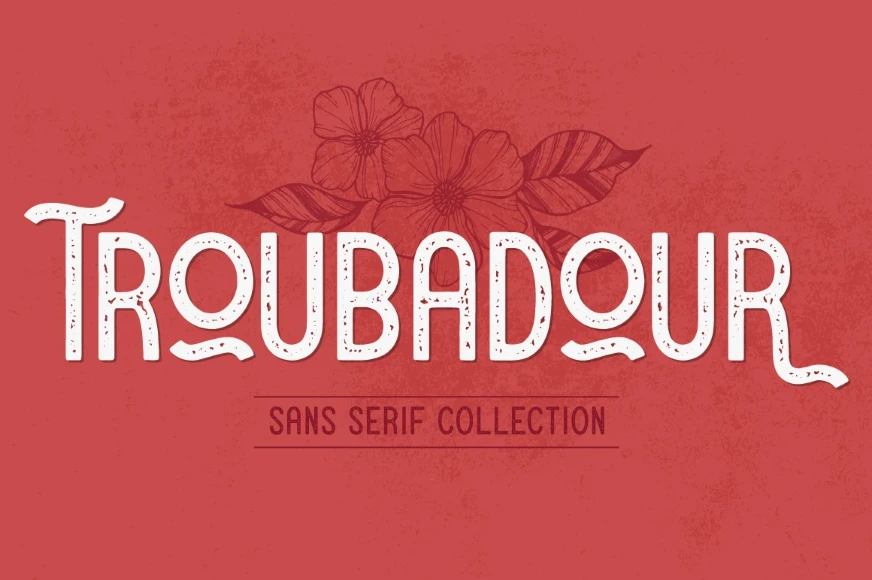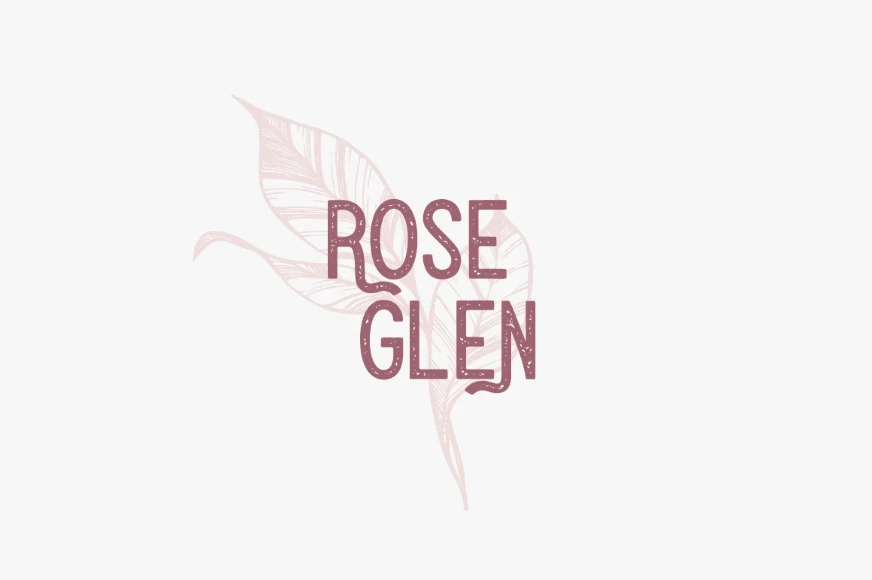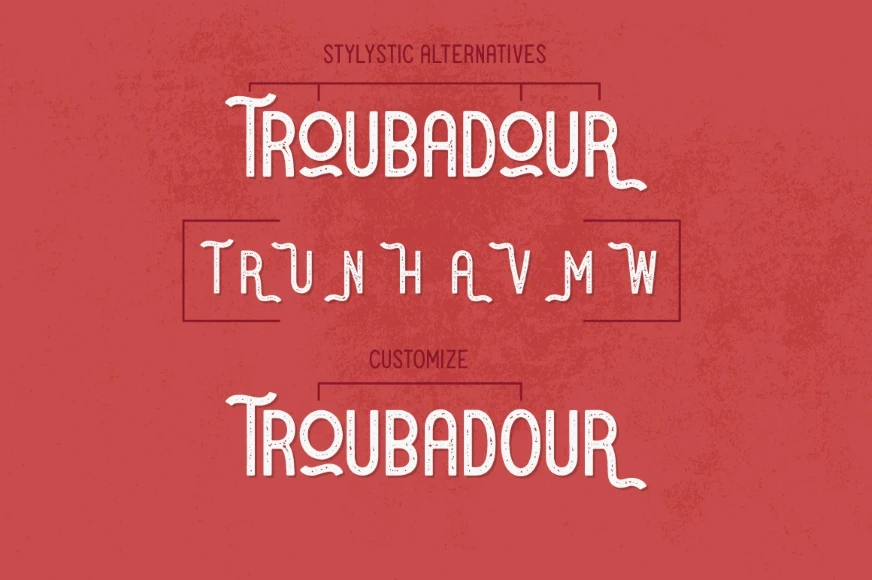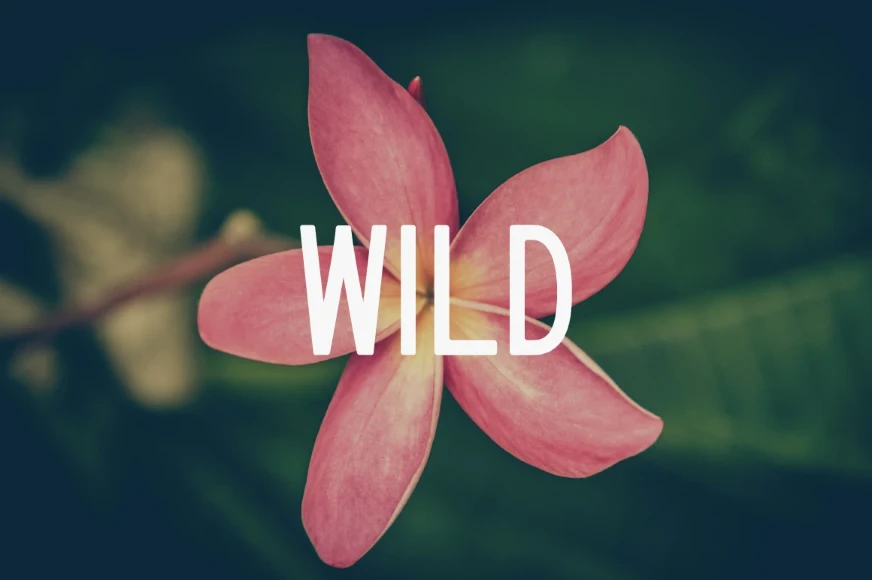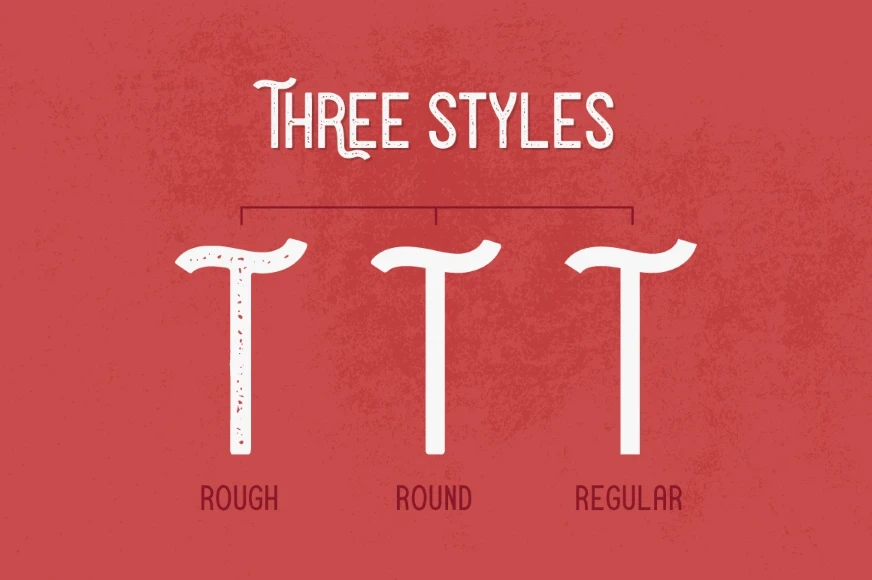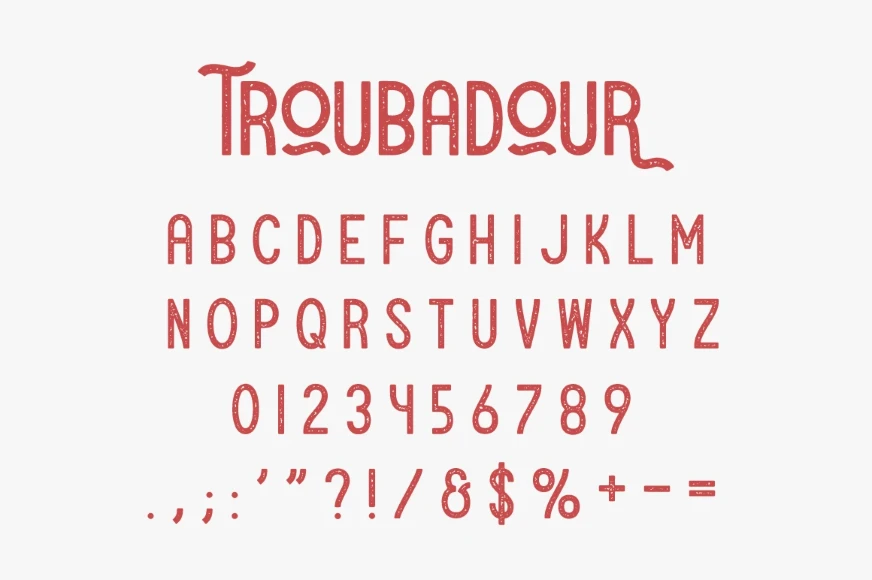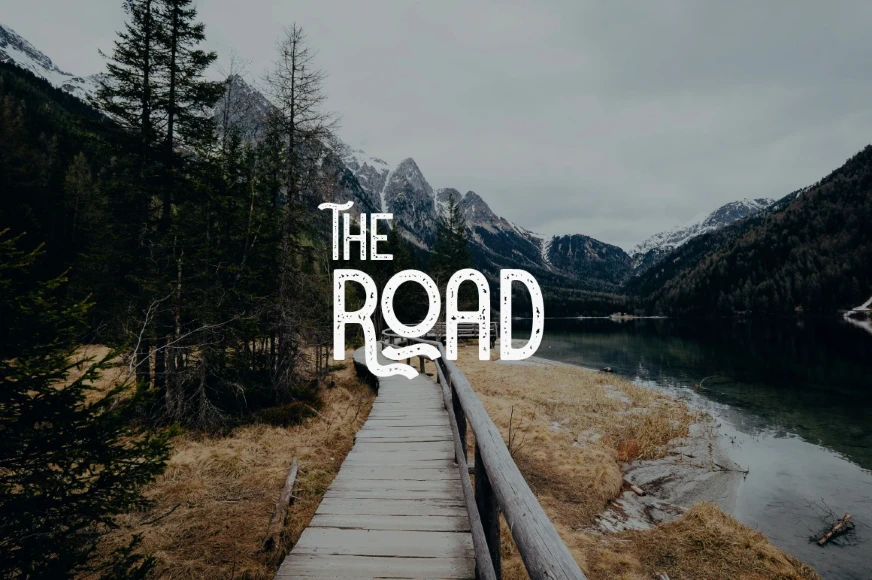
Troubadour
By Josh Ownby
Troubadour Regular
Troubadour Rough
Troubadour Round
Troubadour is a distinctive, condensed, sans serif font family. Featuring three condensed styles — Regular, Round, and Rough — to mix and match, and a handful of playful stylistic alternates for added flexibility. With legibility at its core, craft fantastic magazine headlines, food packaging, brand assets, fashion labels, movie posters, and anything else where a little character will make a big difference.